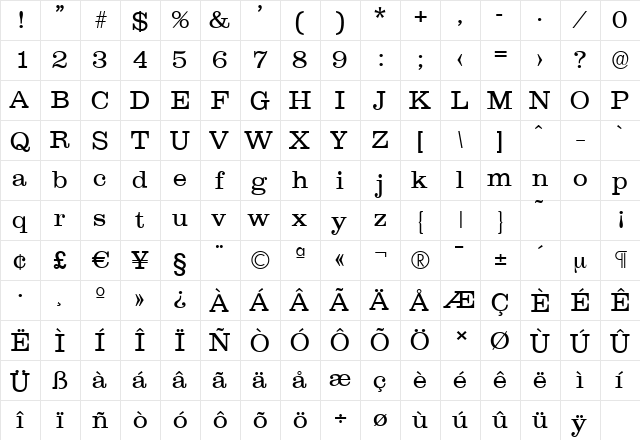
ClareSerial-Light Regular
Design Context for ClareSerial-Light Typeface
ClareSerial-Light takes a measured approach to typography — its balanced proportions and neutral character make it a reliable workhorse for both digital and print work. Its slender proportions lend an understated elegance to any composition.
Pro Tip: Use ClareSerial-Light in both headline and body roles to test its range before committing to a single application.